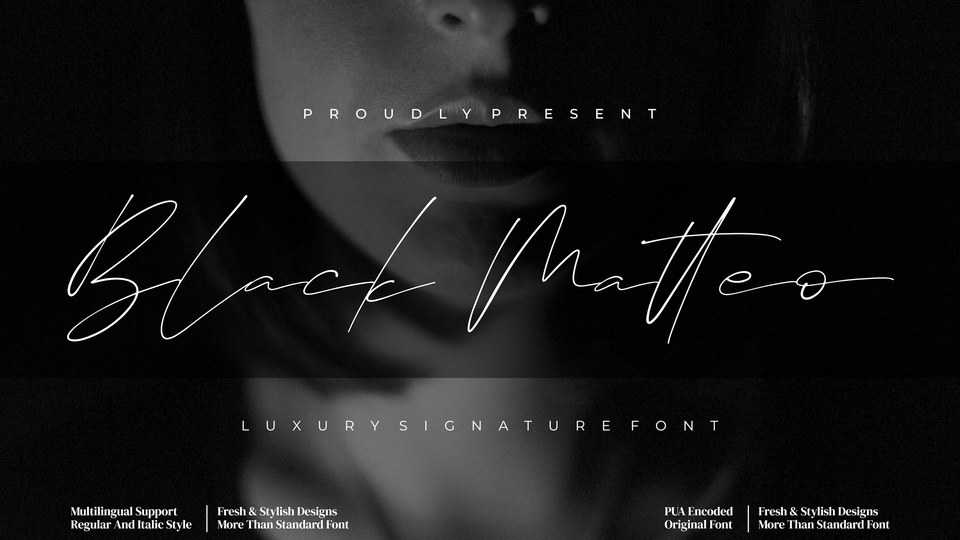
Download Black Matteo font, a stylish and delicate script typeface. Black Matteo has a clean, thin and smooth vibe and it will be a hit for any design that you want to add it to
Designer: Integritype Studio